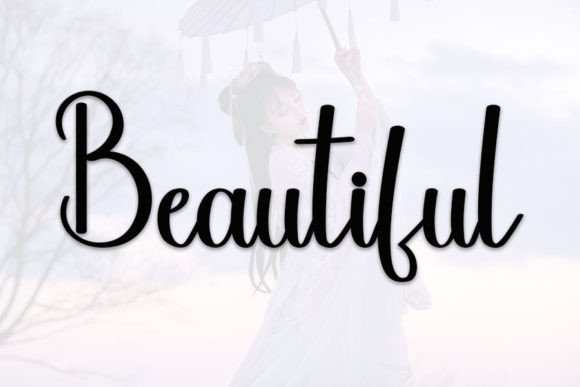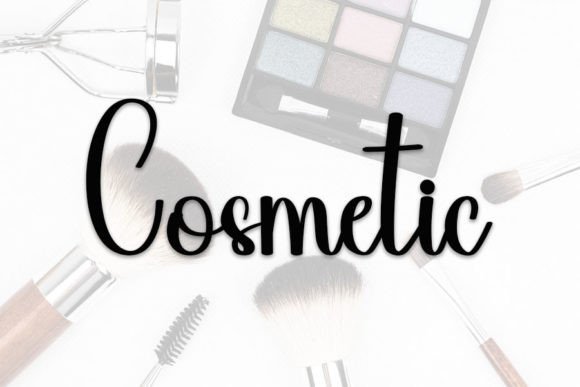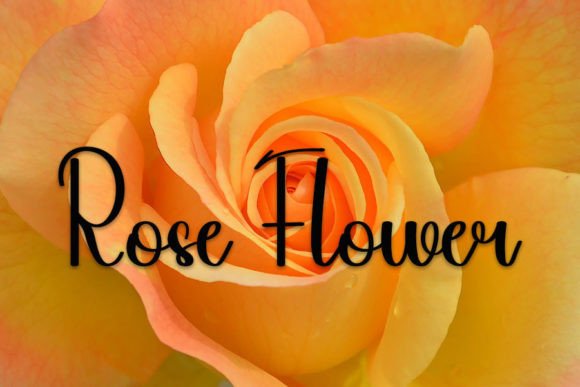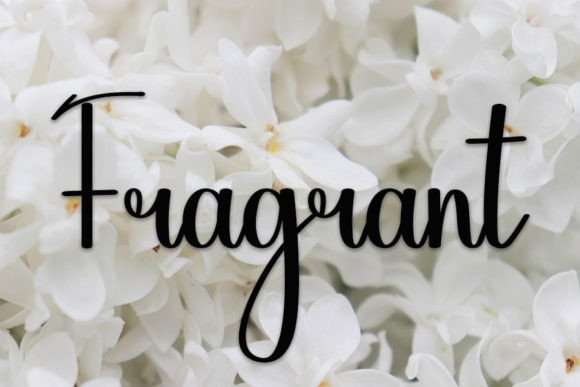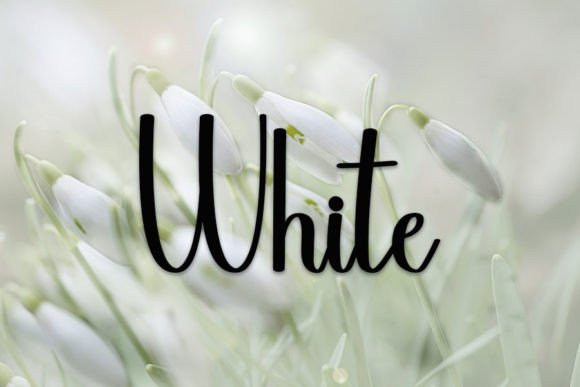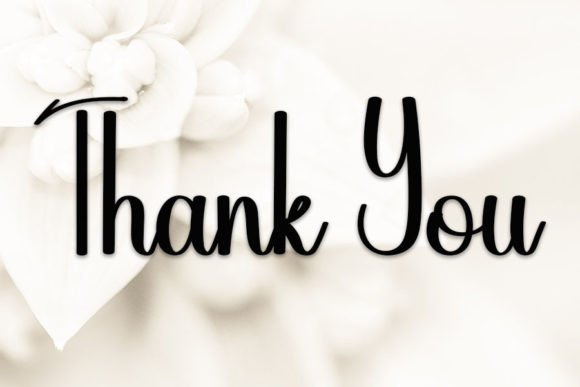
Introducing Beauty Font: Elevate Your Designs with Elegance
Are you on the hunt for a font that exudes elegance and sophistication? Look no further than Beauty Font, a stunning handwritten font that is sure to captivate your audience. With its incredibly distinct and timeless style, Beauty Font is the perfect addition to your design arsenal.
The Characteristics of Beauty Font
Beauty Font is a neat and beautiful handwritten font that boasts an elegant touch. Its unique characteristics make it stand out from other fonts, and its versatility ensures that it can be used for a wide range of projects. Whether you’re a designer, craftsperson, or simply a DIY enthusiast, Beauty Font is sure to inspire your creativity.
What Makes Beauty Font So Special?
So, what sets Beauty Font apart from other fonts? Here are just a few reasons why it’s a cut above the rest:
- Elegant Touch: Beauty Font’s elegant touch is unmistakable. Its flowing lines and delicate curves create a sense of sophistication and refinement.
- Distinct Style: Beauty Font’s incredibly distinct style makes it instantly recognizable. Its unique character set ensures that your designs will stand out from the crowd.
- Timeless Appeal: Unlike trendy fonts that quickly go out of style, Beauty Font has a timeless appeal that ensures your designs will remain relevant for years to come.
- Versatility: Beauty Font is incredibly versatile, making it perfect for a wide range of projects, from branding and advertising to crafting and DIY.
Using Beauty Font for Your Designs
Beauty Font is perfect for a variety of design applications, including:
- Branding and Advertising: Use Beauty Font to create stunning logos, advertisements, and marketing materials that exude elegance and sophistication.
- Crafting and DIY: Add a touch of elegance to your crafting and DIY projects, such as handmade cards, gift tags, and scrapbooking.
- Web Design: Use Beauty Font to create beautiful website headers, titles, and other design elements that will elevate your online presence.
Tips for Getting the Most Out of Beauty Font
To get the most out of Beauty Font, here are a few tips to keep in mind:
- Experiment with Different Sizes: Beauty Font looks great in a variety of sizes, so don’t be afraid to experiment to find the perfect fit for your design.
- Pair with Other Fonts: Beauty Font pairs well with other fonts, so try combining it with bold or sans-serif fonts to create visual interest.
- Use it for Headlines and Titles: Beauty Font is perfect for headlines and titles, where its elegant touch can really shine.
In conclusion, Beauty Font is a stunning handwritten font that is sure to elevate your designs. With its elegant touch, distinct style, and timeless appeal, it’s the perfect addition to your design arsenal. Whether you’re a designer, craftsperson, or simply a DIY enthusiast, Beauty Font is sure to inspire your creativity and help you create spectacular designs.